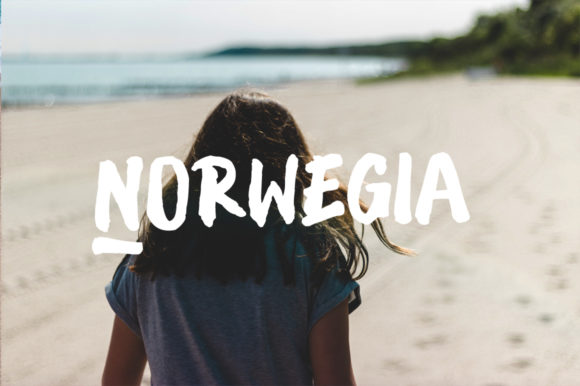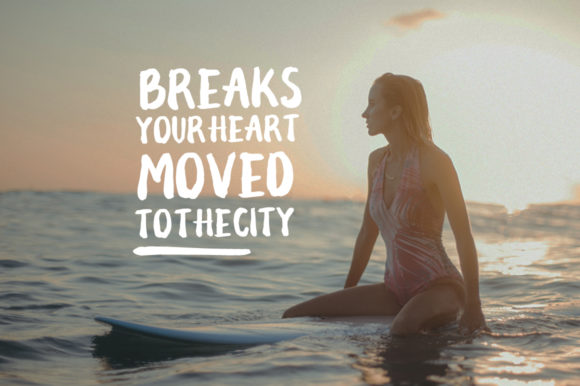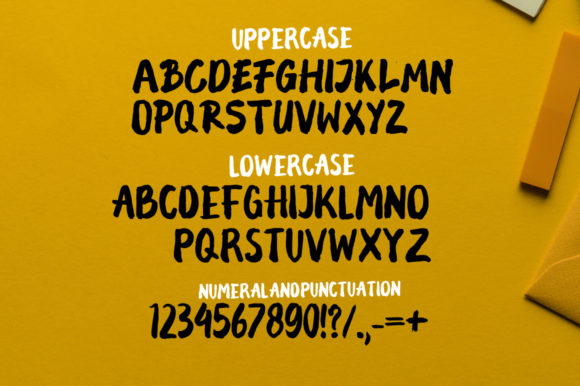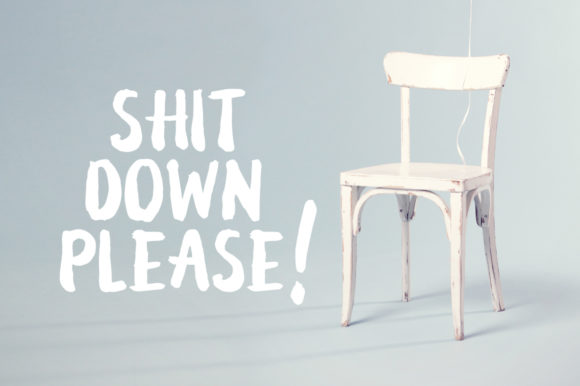
Introduction to Honolulu Font
Honolulu is a light and charming sans serif font with a comic feel.
Get inspired by its unique charm .
Key Features of Honolulu Font